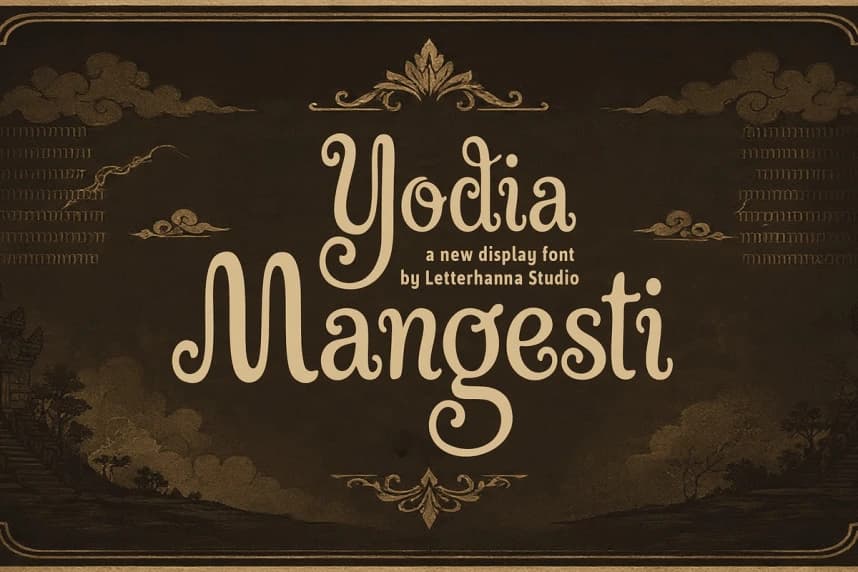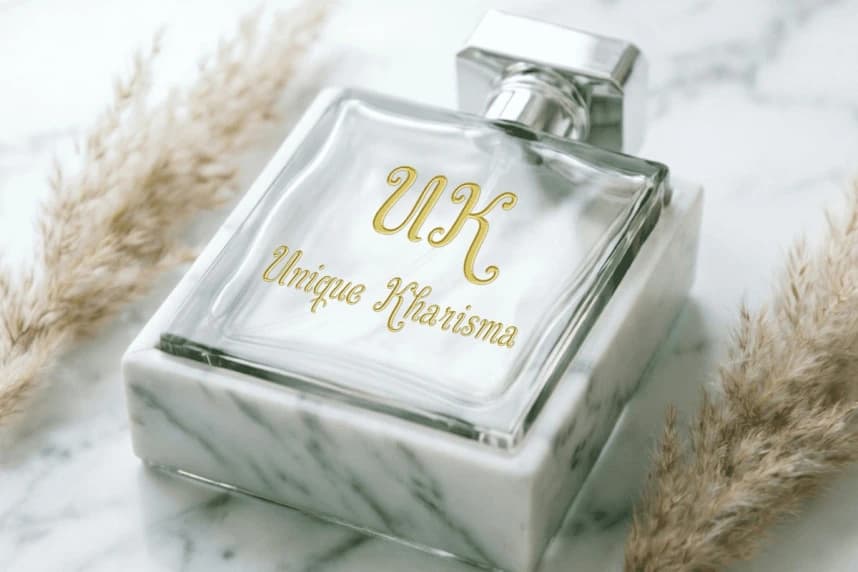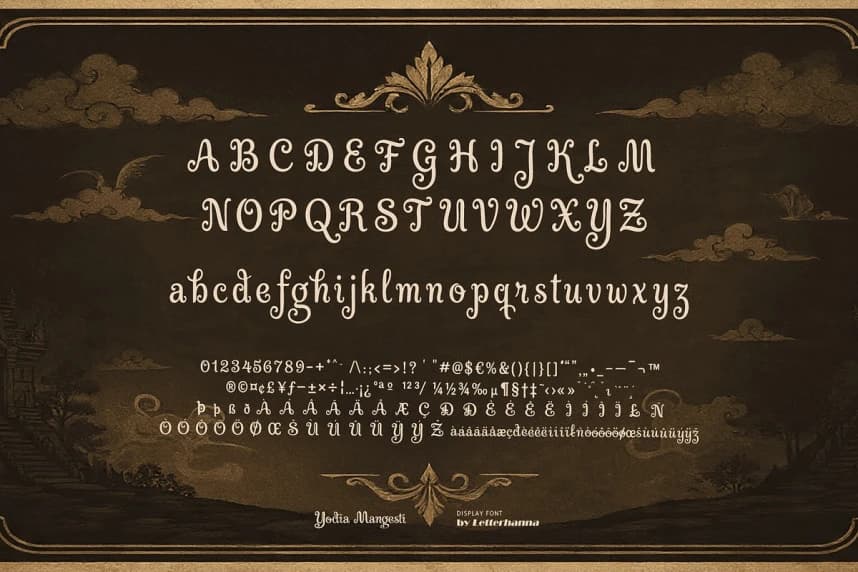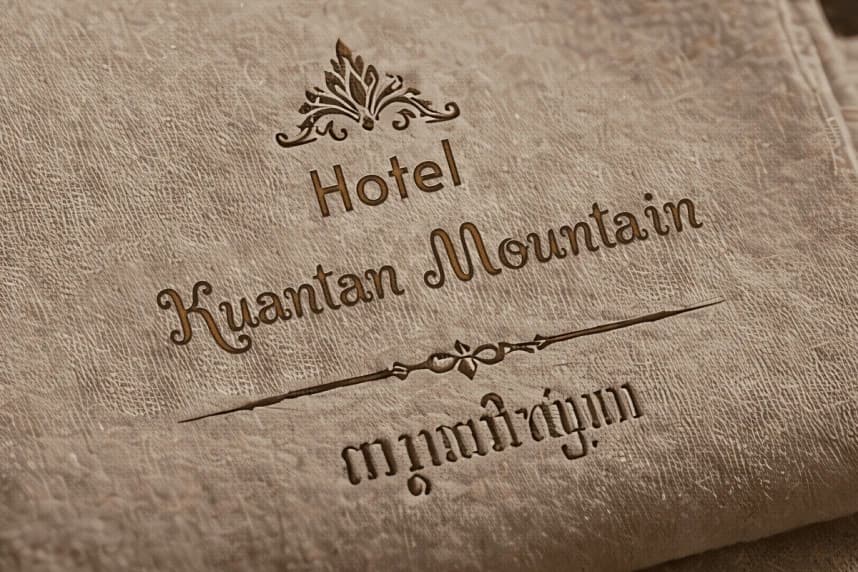
Yodia Mangesti Font
Yodia Mangesti Font — a bold, ornate display font inspired by the flowing curves and graceful strokes of Javanese script (Aksara Jawa), one of Southeast Asia's most revered traditional writing systems.